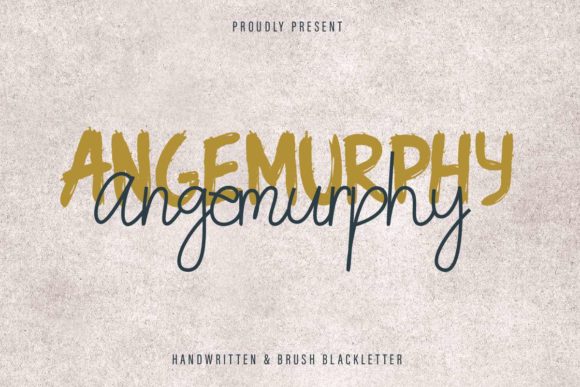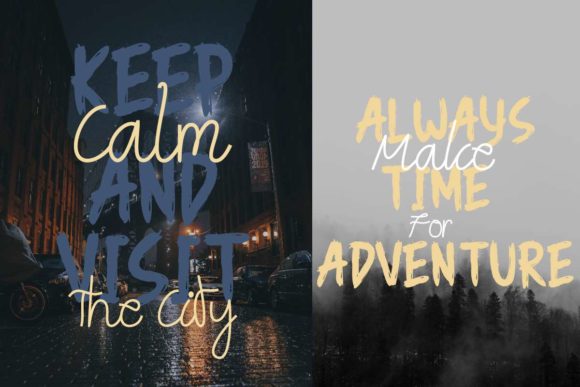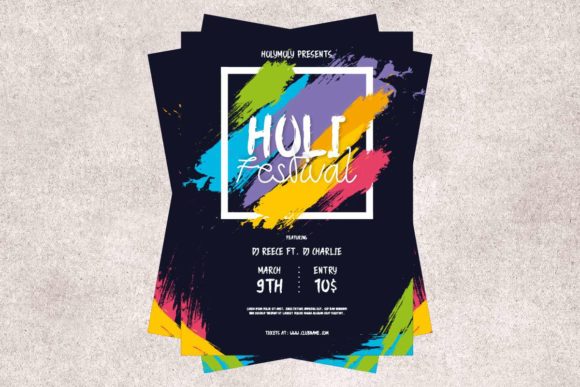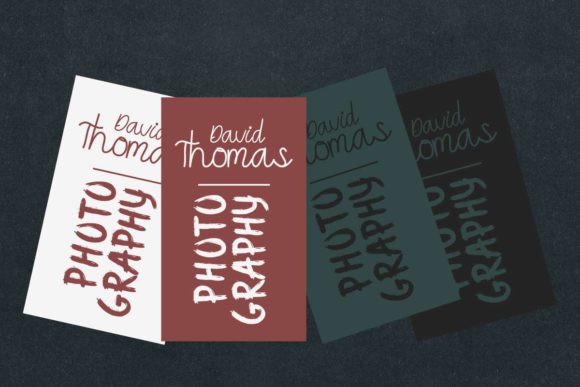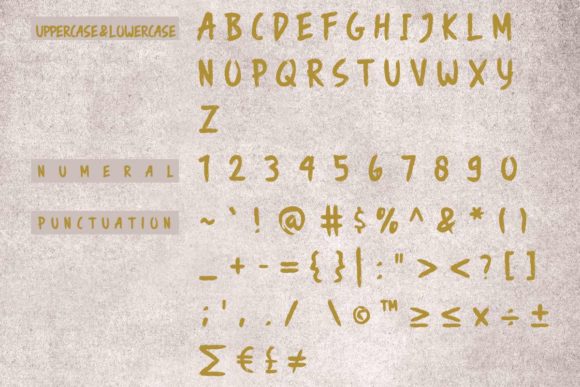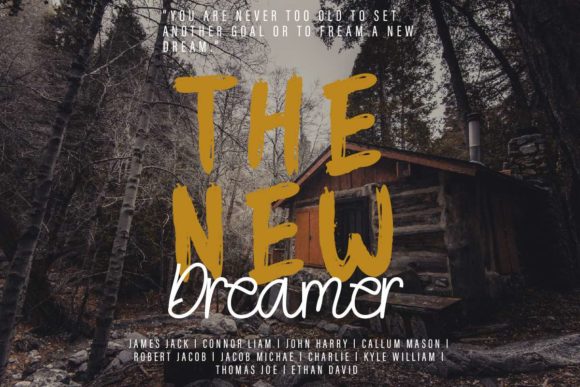
Discover the Unique Style of Angemurphy Font: Elevate Your Designs to New Heights
Are you a designer or crafter looking for a font that can add a touch of elegance and sophistication to your projects? Look no further than Angemurphy Font, a beautiful duo typeface that combines the best of both worlds: script and brush styles. This stunning font is perfect for a wide range of design projects, from branding and headings to wedding designs, invitations, signatures, logos, labels, and more.
What Makes Angemurphy Font So Special?
Angemurphy Font is a unique and versatile typeface that seamlessly blends the fluidity of script with the boldness of brush styles. The result is a font that exudes confidence, creativity, and style. With Angemurphy, you can add a touch of personality to your designs, making them stand out from the crowd. Whether you’re working on a wedding invitation, a logo, or a brand identity, this font is sure to impress.
Key Features of Angemurphy Font
- Dual Style: Angemurphy Font comes with two styles: script and brush. This allows you to mix and match to create unique and eye-catching designs.
- Highly Versatile: This font is perfect for a wide range of design projects, from digital to print.
- Elegant and Sophisticated: Angemurphy Font adds a touch of elegance and sophistication to any design.
How to Use Angemurphy Font in Your Designs
Angemurphy Font is incredibly easy to use and can be incorporated into a variety of design projects. Here are a few ideas to get you started:
- Wedding Designs: Use Angemurphy Font to create stunning wedding invitations, save-the-date cards, and wedding stationery.
- Branding: Add a touch of elegance to your brand identity with Angemurphy Font. Use it for logos, business cards, and letterheads.
- Signatures: Create beautiful signatures with Angemurphy Font, perfect for email signatures, certificates, and more.
- Logos: Use Angemurphy Font to create unique and memorable logos for your clients or business.
- Labels: Add a touch of style to your labels with Angemurphy Font, perfect for product labels, gift tags, and more.
Why Designers and Crafters Love Angemurphy Font
Designers and crafters love Angemurphy Font for its unique style, versatility, and ease of use. Here are a few reasons why:
- Unique Style: Angemurphy Font offers a unique style that sets it apart from other fonts.
- Time-Saving: With Angemurphy Font, you can create stunning designs in no time, saving you time and effort.
- Customizable: This font is highly customizable, allowing you to adjust the size, color, and style to fit your design needs.
Angemurphy Font is a beautiful duo typeface that combines the best of both worlds: script and brush styles. With its unique style, versatility, and ease of use, it’s perfect for a wide range of design projects. Whether you’re a designer or crafter, Angemurphy Font is sure to elevate your designs to new heights. So why wait? Download Angemurphy Font today and start creating stunning designs that impress!
- Angemurphy Font is a unique duo typeface that combines script and brush styles.
- It’s perfect for a wide range of design projects, from branding and headings to wedding designs and more.
- Angemurphy Font is easy to use and highly customizable.
- It’s a time-saving solution for designers and crafters who want to create stunning designs.